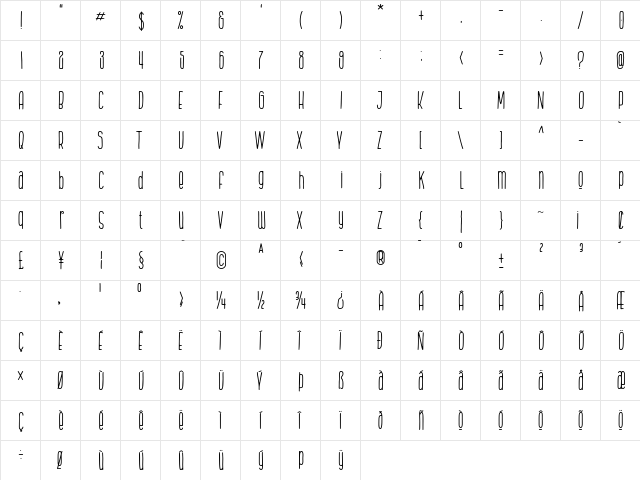
The Bounce Regular
Design Context for The Bounce Typeface
The Bounce is a composed and adaptable typeface that performs quietly and consistently across a wide range of design contexts.